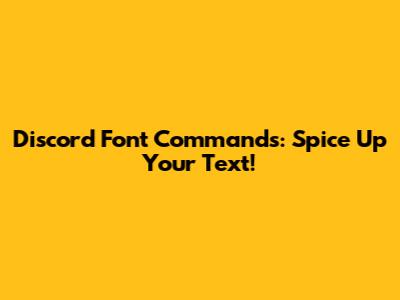
Discord Font Commands: Spice Up Your Text!
Hey guys! Ever feel like your Discord messages are just a tad too… vanilla? Want to add a little flair, a little oomph, a little pizzazz to your text? Well, you've come to the right place! Discord, while not having built-in, official font options, offers some neat tricks to change your text style using Markdown and a few other clever methods. Let's dive into how you can use discord fonts commands to make your messages pop!
Mastering Markdown for Basic Text Styles
Markdown is your best friend when it comes to basic text formatting on Discord. It’s super easy to learn and use, and it can drastically improve the readability and visual appeal of your messages. These discord fonts commands using Markdown are universal across Discord, meaning they will work on any server and in direct messages. So, let's get started with the fundamentals.
- Bold: Want to emphasize a point? Make your text bold using double asterisks (**text**). For example,
**This is bold text**will appear as This is bold text. Using bold text is perfect for highlighting important information, like deadlines, key instructions, or just to make a word or phrase stand out in a longer message. Experiment with it to see how it can make your messages more effective and engaging. You could, for instance, use it to emphasize the most important part of a sentence. - Italics: Need to add a touch of elegance or indicate a quote? Use single asterisks (*text*) to make your text italic. For instance,
*This is italic text*will render as This is italic text. Italics are fantastic for adding a subtle emphasis to your words. Imagine you are telling a story, italicizing certain words can enhance the tone and emotion. Plus, it's great for quoting sources or even just adding a bit of personality to your conversations. Using italics can also help you distinguish between different parts of your message, guiding the reader's eye and making the overall experience more enjoyable. - Bold Italics: For the ultimate emphasis, combine both bold and italics using triple asterisks (***text***). So,
***This is bold italic text***becomes This is bold italic text. This is where you really want to grab someone's attention. Think about using bold italics when you're making a really important announcement, or when you want to convey a sense of urgency. It's also great for adding a touch of drama to your stories or role-playing scenarios. Just be careful not to overuse it, or your messages might end up looking a bit too chaotic! Strikethrough:Sometimes, you need to show that something is no longer relevant or that you're being sarcastic. Use double tildes (text) to strikethrough your text. Typing~~This is strikethrough text~~will show asThis is strikethrough text. Strikethrough is a surprisingly versatile tool. You can use it to correct mistakes while still showing what you originally wrote, or to indicate that something has been canceled or is no longer available. It's also a fun way to add a bit of humor to your conversations, especially when you're being sarcastic or making a self-deprecating joke. Just remember to use it sparingly, as too much strikethrough can make your messages difficult to read.Underline:Discord now supports underlining text! Use double underscores (__text__) to underline your text. For example,__This is underlined text__will appear as This is underlined text. Underlining is perfect for drawing attention to specific parts of your message. You might use it to highlight links, important names, or key phrases that you want people to notice. It's also a great way to emphasize the structure of your message, helping readers to quickly understand the main points. Just be sure to use it judiciously, as too much underlining can make your text look cluttered.Spoiler Tags:Want to hide a part of your message until someone clicks on it? Use double pipes (||text||) to create a spoiler tag. Typing||This is a spoiler||will hide the text until clicked. Spoiler tags are essential for discussing movies, games, or books without ruining the experience for others. They're also a fun way to add an element of surprise to your messages. You could use them to reveal a joke, a plot twist, or even just a funny image. Just be mindful of your audience and avoid using spoiler tags for things that aren't actually spoilers, as this can be annoying.
These simple Markdown tricks are the foundation of text formatting on Discord. Practice using them, and you'll be surprised at how much more engaging and expressive your messages can become. They are definitely discord fonts commands you need to know.
Code Blocks for a Different Look
While not exactly changing the font itself, code blocks offer a distinct style that can set your text apart. They're especially useful for sharing code snippets, but you can use them for regular text too! There are two types of code blocks:
- Inline Code: Enclose text in single backticks ("
text"). For example,`This is inline code`will display asThis is inline code. Inline code is perfect for highlighting specific words or phrases within a sentence. You might use it to mention a command, a variable name, or a technical term. It's also a great way to add a bit of visual contrast to your messages, making them easier to read and understand. - Multi-line Code Blocks: Use triple backticks (
```text```) to create a multi-line code block. This is great for longer snippets or for separating a block of text. You can also specify a language after the first set of backticks for syntax highlighting (e.g.,```python```). Multi-line code blocks are ideal for sharing code snippets, configuration files, or any other type of text that benefits from a fixed-width font and syntax highlighting. They're also a great way to present information in a clear and organized manner. You could use them to list steps in a process, present data in a table-like format, or even create ASCII art. This will make your discord fonts commands look like a pro.
Leveraging Unicode Text Converters
Okay, this is where things get a bit more interesting! Discord doesn't natively support different fonts in the traditional sense. However, you can use online Unicode text converters to generate text in various pseudo-fonts that you can then copy and paste into Discord.
- How it Works: These converters use special Unicode characters that look like different fonts. For example, you can find converters that create text that resembles bold, italic, monospace, or even fancy cursive fonts.
- Popular Converters: A quick Google search for "Unicode text converter" will reveal a plethora of options. Websites like LingoJam and YayText are popular choices.
- Limitations: Keep in mind that these aren't true fonts. They're just Unicode characters that resemble fonts. This means:
- They might not be supported on all devices or platforms.
- They can sometimes appear differently depending on the user's system.
- They can make your text harder to read for some people, especially those with visual impairments.
Despite these limitations, Unicode text converters can be a fun way to add some visual flair to your Discord messages. Just use them sparingly and consider your audience.
Discord Bots for Advanced Formatting
For those who want even more control over their text formatting, Discord bots can be a game-changer. Some bots offer advanced formatting options that go beyond Markdown and Unicode converters.
- Example Bots: There are many Discord bots available that offer formatting features. Some popular options include those designed for roleplaying communities, which often include commands for creating custom text styles and effects.
- Customization: These bots often allow you to create custom commands that apply specific formatting to your text. This can include things like changing the font size, color, or adding special effects.
- Server-Specific: Keep in mind that bot commands are usually specific to the server they're installed on. This means that the formatting options you have available will depend on the bots that are installed on the server you're using.
Using Discord bots for advanced formatting can be a powerful way to enhance your server's communication and create a unique visual identity. However, it's important to choose bots carefully and ensure that they're reliable and well-maintained.
Important Considerations When Using Discord Fonts Commands
Before you go wild with different text styles, here are a few things to keep in mind:
- Readability: Always prioritize readability. Fancy fonts might look cool, but if they're difficult to read, they're not helping anyone. Use discord fonts commands wisely.
- Accessibility: Be mindful of users with visual impairments. Some fonts can be difficult to read for people with certain disabilities. Try to stick to standard Markdown formatting whenever possible.
- Consistency: Maintain a consistent style throughout your messages and server. Too much variation can be distracting and make your communication less effective.
- Server Rules: Some servers may have rules about text formatting. Be sure to check the rules before using any fancy fonts or formatting tricks.
So there you have it! A comprehensive guide to using discord fonts commands to spice up your text. From basic Markdown to Unicode converters and Discord bots, there are plenty of ways to add some visual flair to your messages. Just remember to prioritize readability, accessibility, and consistency. Now go forth and make your Discord conversations shine!